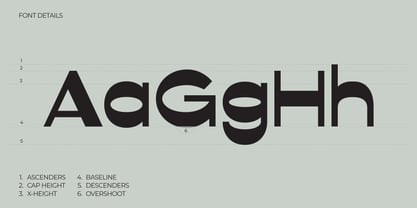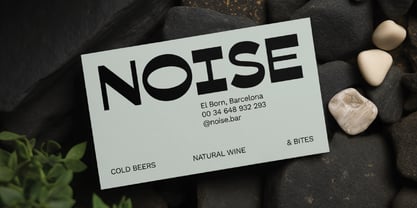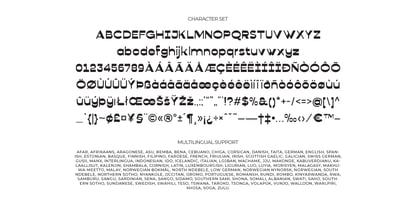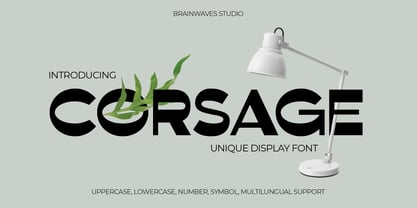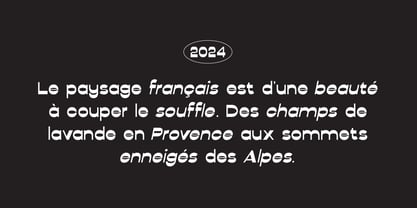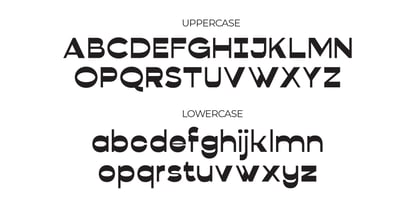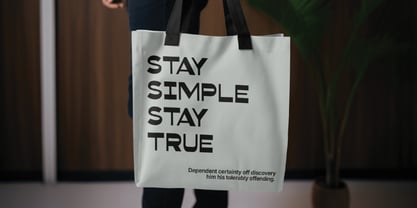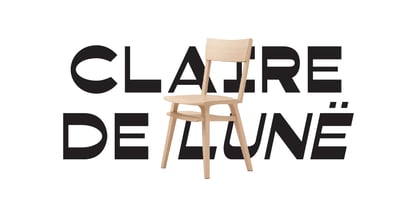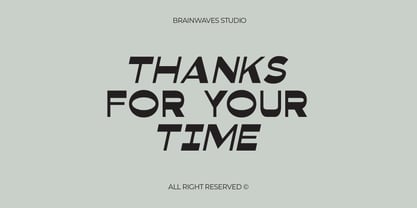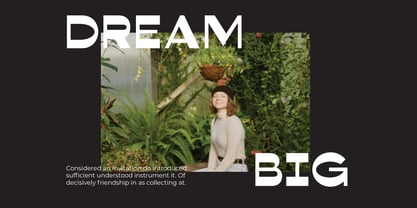
Corsage Sans Display
by Brainwaves Studio
The Corsage Sans Display Font Family was designed by Lucky Fitriadi and published by Brainwaves Studio. Corsage Sans Display contains 2 styles and family package options. More about this family
Corsage – Minimalism Redefined
Step into a world of refined creativity with Corsage, a modern display font that seamlessly merges minimalist structure with soft, organic elegance. Perfect for projects that demand simplicity with a bold, contemporary edge.
What Sets Corsage Apart?
• Distinctive Style: A harmonious blend of geometric precision and subtle curves, ideal for modern and minimalist designs.
• Comprehensive Features: Includes uppercase, lowercase, numbers, symbols, and extensive multilingual support to cater to all your design needs.
• Versatility: Perfect for branding, editorial layouts, posters, packaging, and more, Corsage adapts effortlessly to your creative vision.
Every letter in Corsage tells a story—crafted with precision to exude modern sophistication and minimalist charm. Whether you're designing for fashion, lifestyle, or tech, Corsage adds a timeless elegance that captivates and inspires.
Designers: Lucky Fitriadi
Foundry: Brainwaves Studio